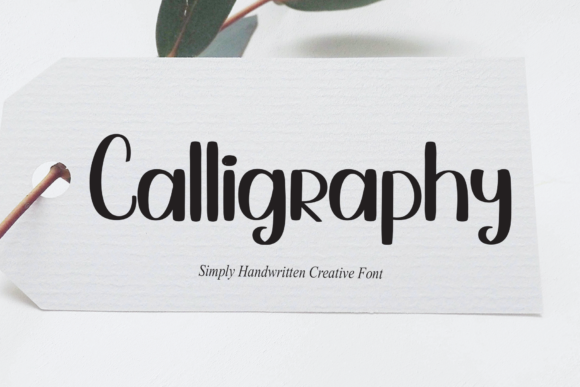
The Sweet Charm of Calligraphy Font: A Designer’s Delight
I’ll never forget the time I was working on a wedding invitation project, and my client asked for a font that was elegant, yet playful. I scoured the internet, tried countless fonts, but nothing seemed quite right. That’s when I stumbled upon Calligraphy Font, and it was love at first sight! 💕
Crafted with great care, Calligraphy Font is a sweet handwritten font that has become a staple in my design toolkit. Its versatility and charm make it perfect for a wide range of projects, from wedding invitations to branding materials, and even crafty DIY projects.
- ✨ Elegant yet approachable feel
- 💫 Beautifully crafted with attention to detail
- 🎨 Highly versatile, suitable for various design projects
While Calligraphy Font is an excellent choice, there are a few things to keep in mind: 🤔
- ⚠️ Limited availability of stylistic alternates
- ⚠️ May not be suitable for very formal or corporate designs
Calligraphy Font was crafted with inspiration from traditional calligraphy and hand-lettering techniques. The designer aimed to create a font that was both elegant and approachable, perfect for a wide range of design projects. While the designer’s background is unknown, their passion for typography and design shines through in this beautiful font.
| What is Calligraphy Font? | Calligraphy Font is a sweet handwritten font crafted with great care to produce elegant yet approachable results. |
| Can I use Calligraphy Font for my wedding invitations? | Absolutely! Calligraphy Font is a popular choice for wedding invitations and other formal events. |
| Does Calligraphy Font support OpenType features? | Yes, Calligraphy Font supports OpenType features, including ligatures and stylistic alternates. |